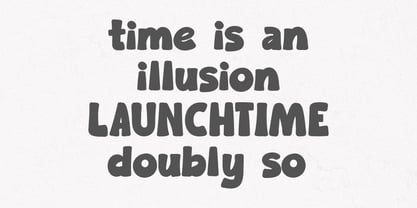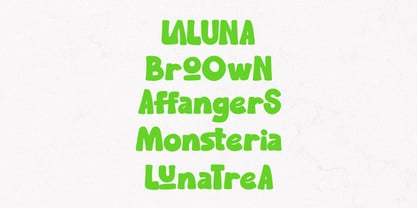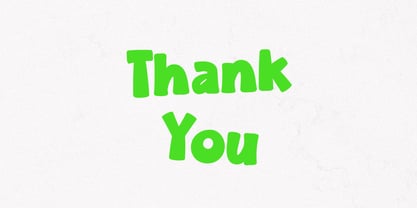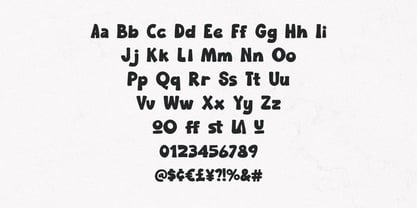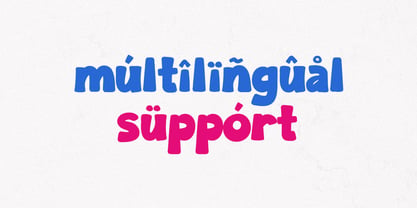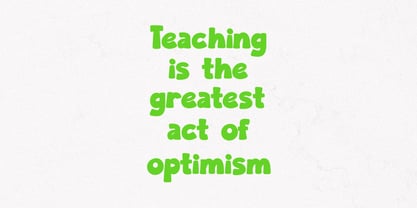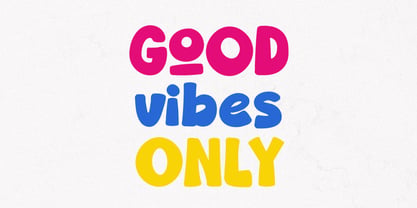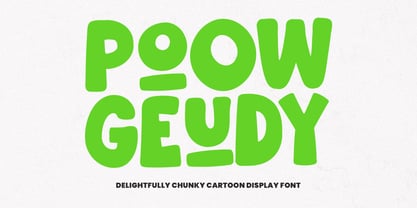
MC Poow Geudy
by Maulana Creative
The MC Poow Geudy Font Family was designed by Gilang Maulana and published by Maulana Creative. MC Poow Geudy contains 1 styles. More about this family
Are you ready to inject a massive dose of fun and personality into your design projects? Meet Poow Geudy, a delightfully chunky, cartoon-inspired display font that’s impossible to ignore! Poow Geudy is bursting with playful energy. Its smooth, rounded edges and bold, friendly forms give it an irresistibly charming character that instantly makes any text feel approachable and vibrant. This is the font you need when you want to make a big, happy statement. Perfect for: Branding & Logos: Create memorable, kid-friendly, or snack-brand identities. Packaging: Stand out on the shelf with eye-catching, unique typography. Social Media: Design viral-ready posts, stories, and headers. Posters & Apparel: Ideal for merchandise, event flyers, and attention-grabbing headlines. Children’s Books & Games: Bring stories and characters to life with a truly joyful typeface. With its robust, attention-demanding weight and quirky details (like the fun alternates seen in the image!), Poow Geudy is designed to be the star of the show. Don't settle for boring. Grab Poow Geudy today and turn your designs from dull to WOW!
Designers: Gilang Maulana
Foundry: Maulana Creative